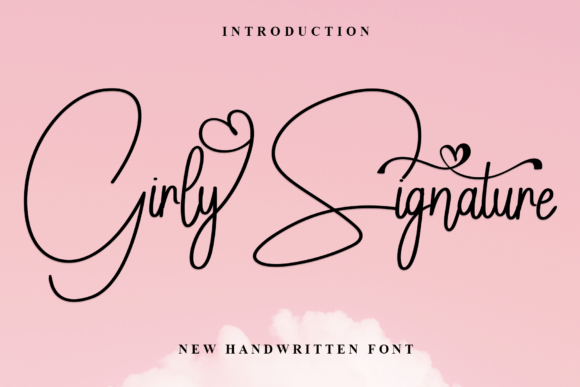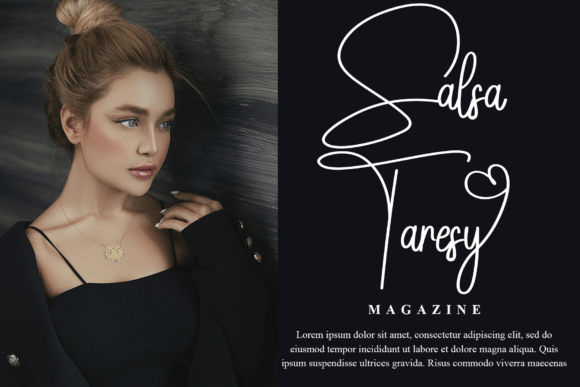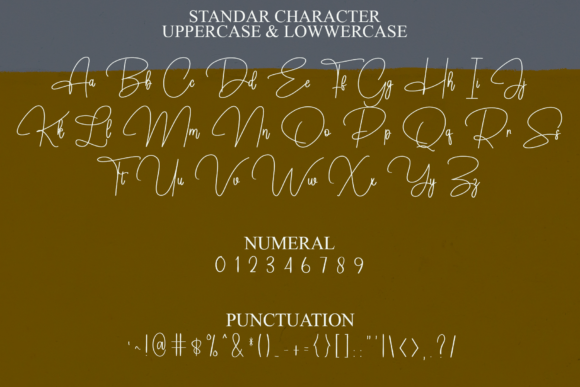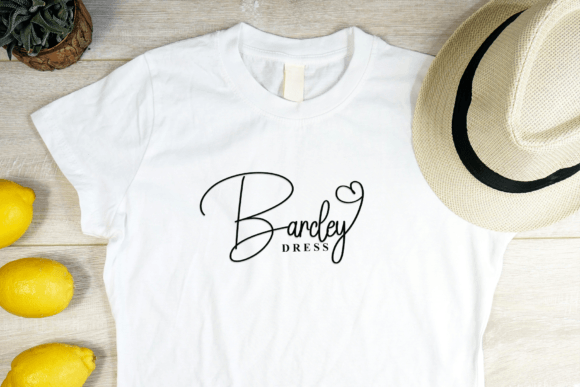
Girly Signature Font
About the Girly Signature Font
Let us introduce you to Girly Signature Font, where timeless design meets modern craftsmanship. Girly Signature is a stylish handwritten font with a contemporary atmosphere and impeccable form, inspired by a timeless classic calligraphy. Balanced and varied, this font was designed to enhance the beauty of your projects.
Girly Signature excels in projects requiring a touch of elegant femininity. It’s ideally suited for branding materials such as logos, short taglines, and social media graphics, as well as wedding invitations, greeting cards, and packaging for beauty or fashion products. Avoid using it for large blocks of text or body copy; its handcrafted nature makes it less legible for extended reading.
This script font’s personality is sophisticated yet approachable. To complement its charm, pair it with a clean sans-serif like Lato for body text or a modern geometric sans-serif like Montserrat for a more contemporary feel. Alternatively, a delicate serif like Playfair Display can add a touch of classic elegance.
For a bolder contrast, consider pairing it with a strong, condensed sans-serif; however, ensure sufficient spacing to avoid visual clutter. Overuse of ligatures should also be avoided in smaller sizes to maintain readability.
Girly Signature Font Usage Examples
Girly Signature Font Example